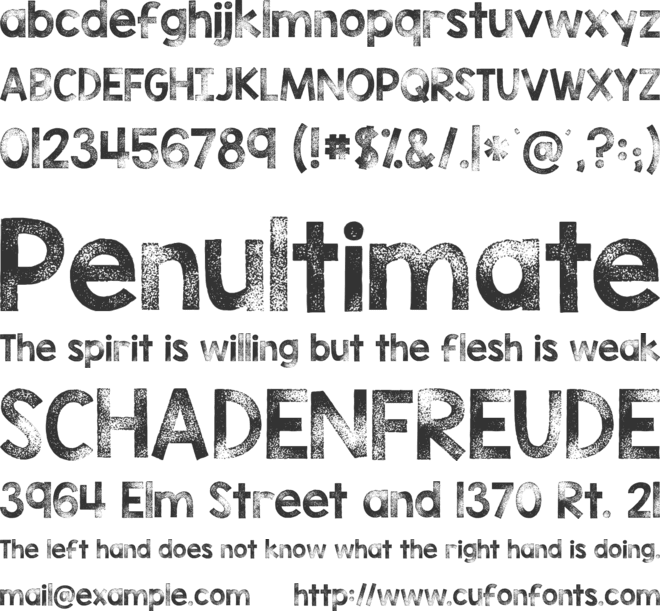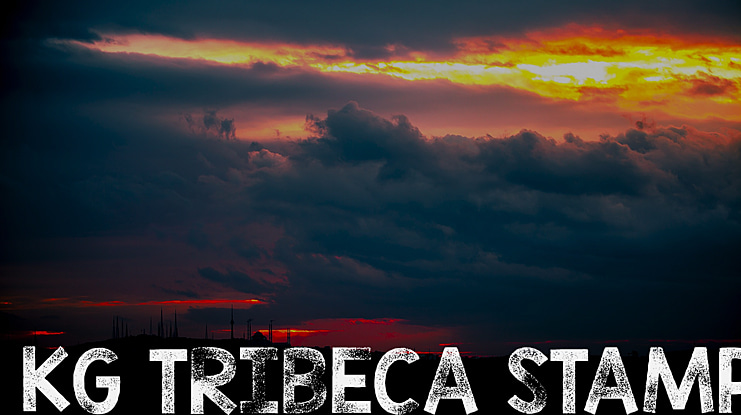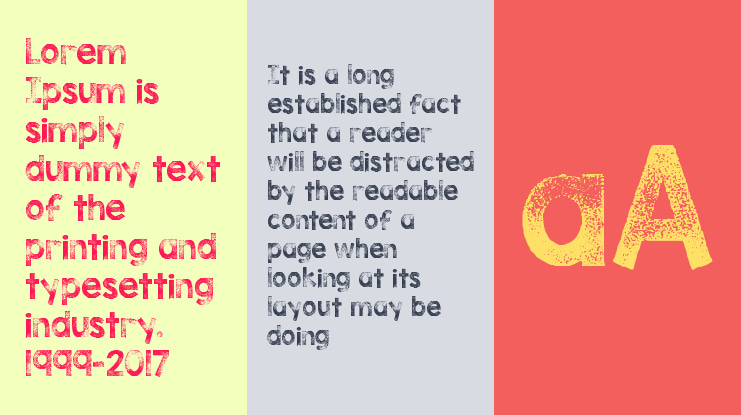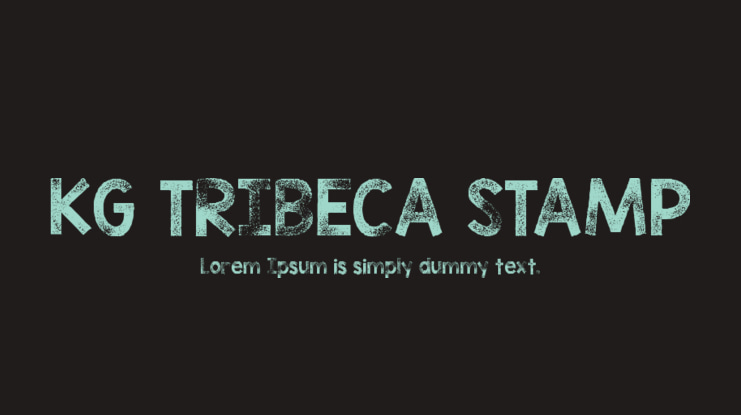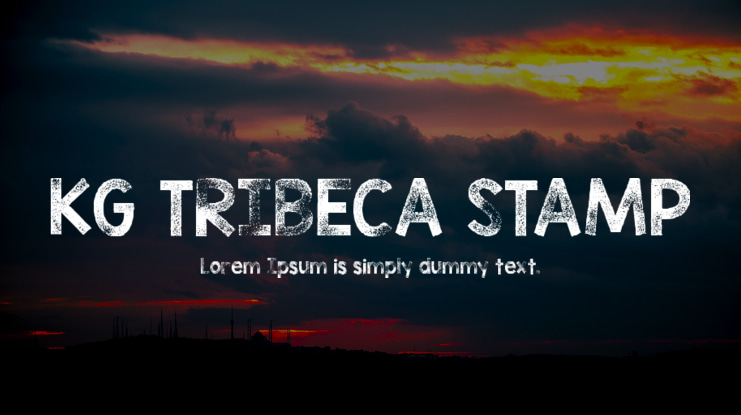
KG TRIBECA STAMP Font
Kimberly Geswein
A chunky stamped font with lots of texture. Best used at large sizes for detail. Please license for commercial use at http://kimberlygeswein.com